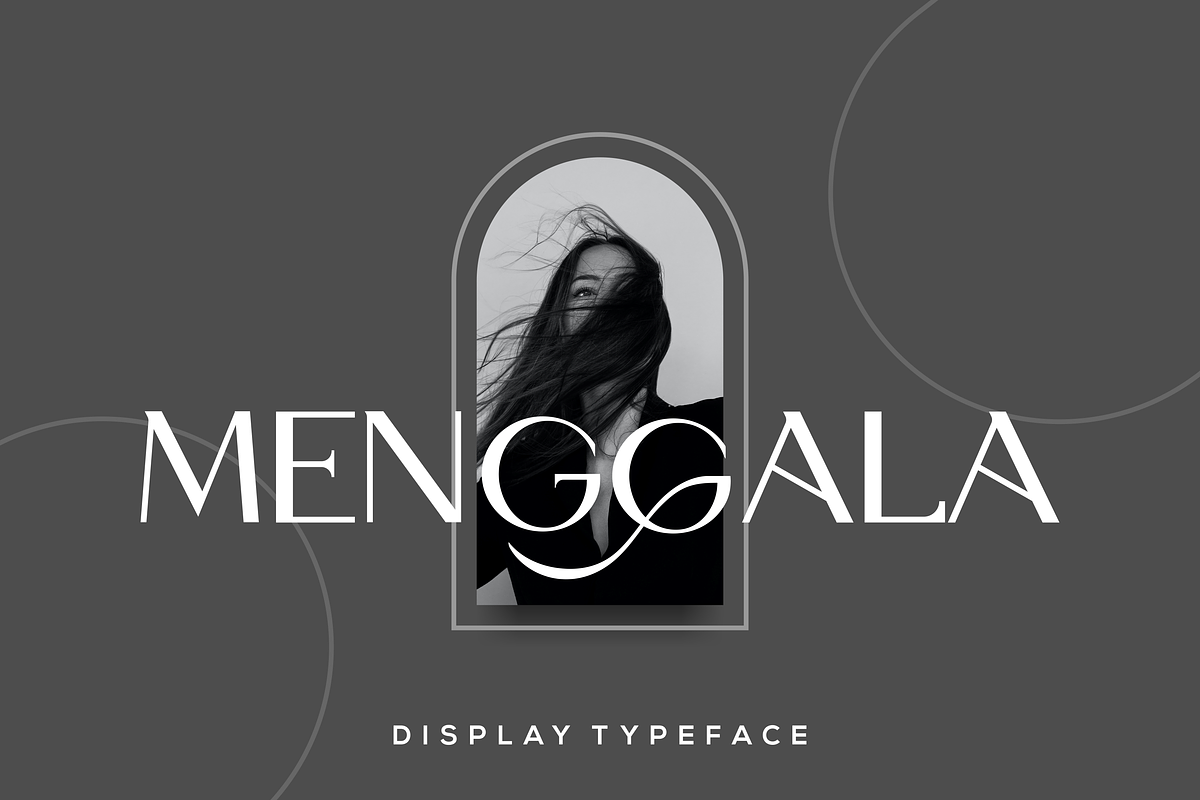
Menggala Font Free Download is a bold and stylish display typeface that combines traditional character with modern flair. Perfect for headlines, logos, posters, and eye-catching social media graphics, Menggala delivers strong visual impact with its confident strokes and unique letterforms.
Its blend of sharp edges and subtle curves gives it a dynamic, contemporary look while retaining a touch of classic design. This font is ideal for designers seeking a standout typeface that brings personality and strength to every layout.